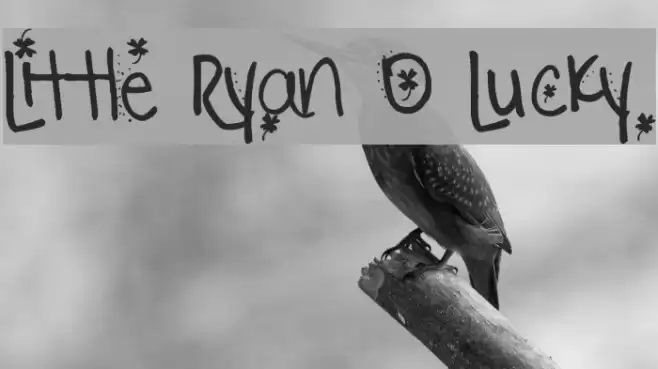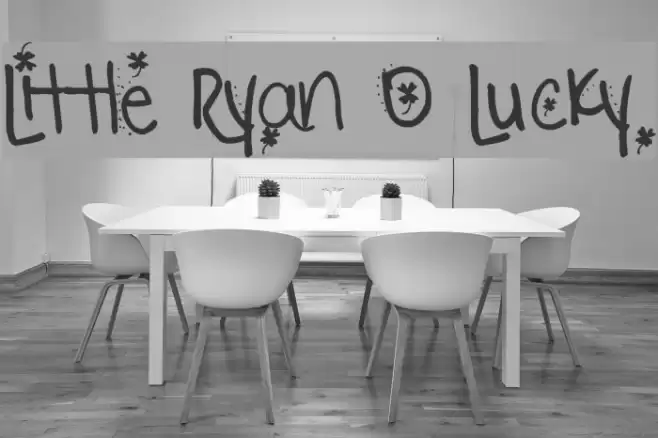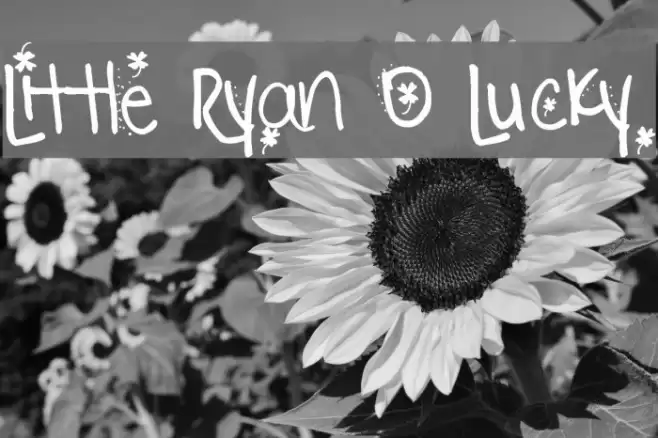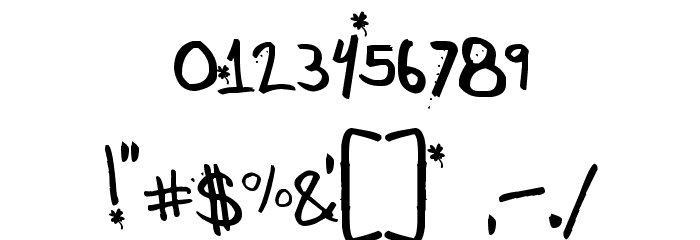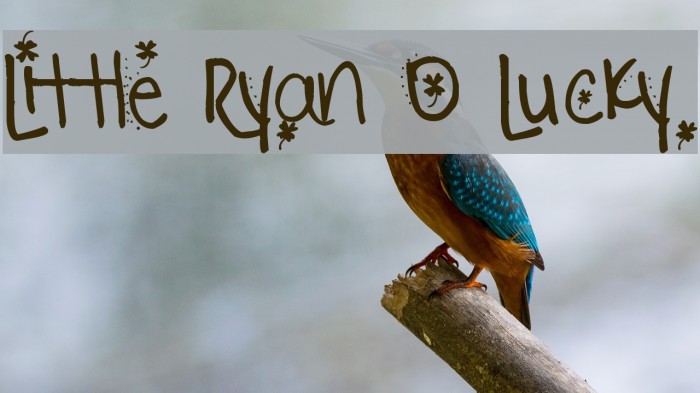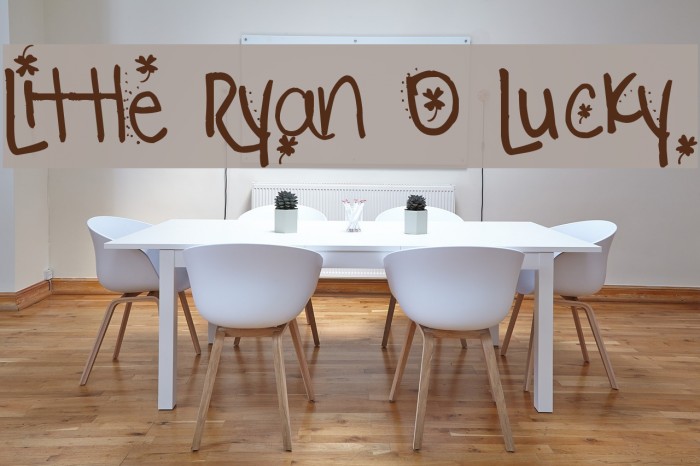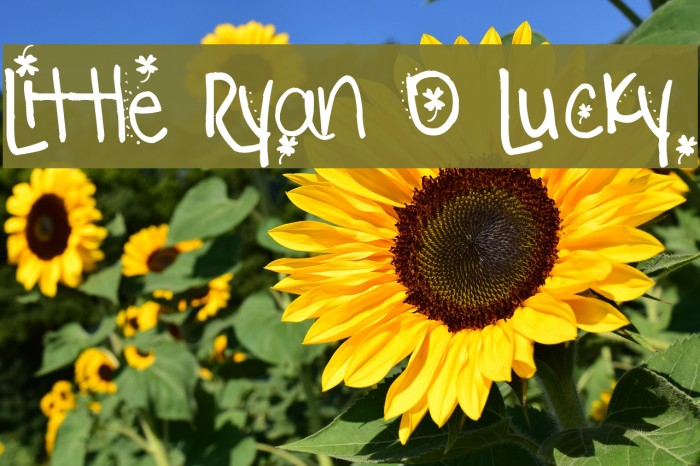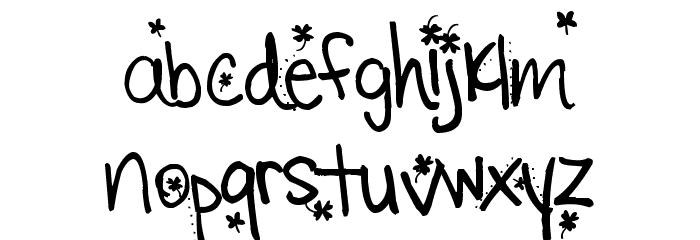
Little Ryan O Lucky Font
Little Ryan O Lucky Description
This playful and whimsical font features a handwritten style with a unique twist. Each character is adorned with small star-like accents, giving it a lively and energetic feel. The letters are slightly irregular, adding to the casual and informal appearance. The font maintains a consistent stroke width, contributing to its legibility despite the decorative elements. Its quirky nature makes it ideal for projects that require a fun and engaging look, such as children's books, party invitations, or playful branding. The numbers and special characters are equally adorned, ensuring a cohesive design throughout.
A playful handwritten font with star accents and a whimsical style from Uncategorized fonts.
- Proposed Projects: Ideal for children's books, party invitations, playful branding, and creative projects.
- Use Case: Headlines, Logos, Creative projects